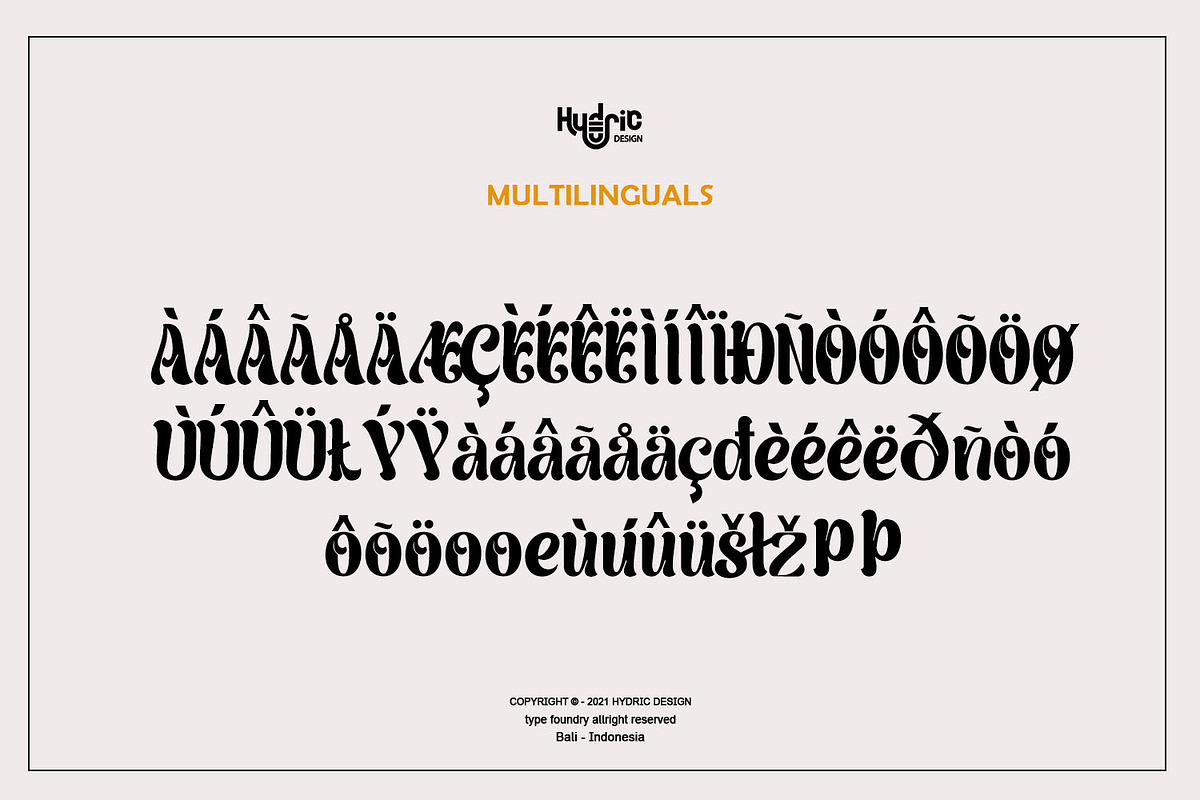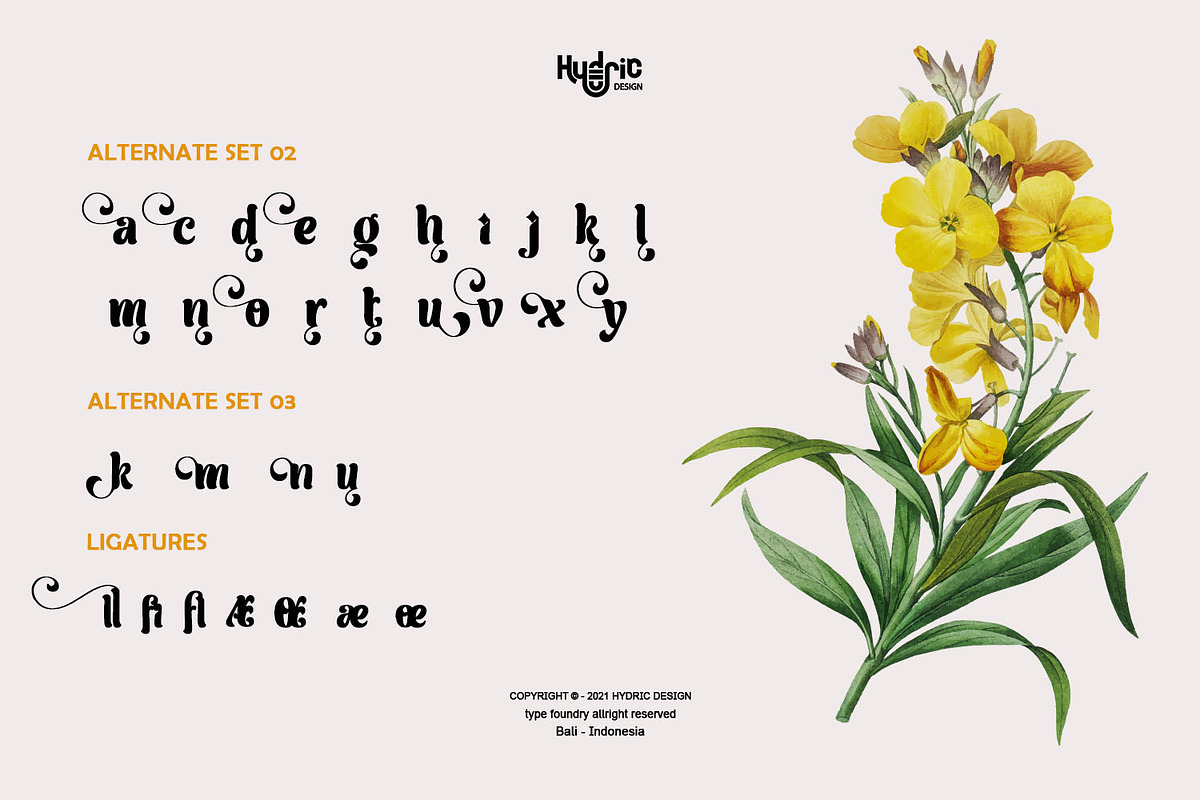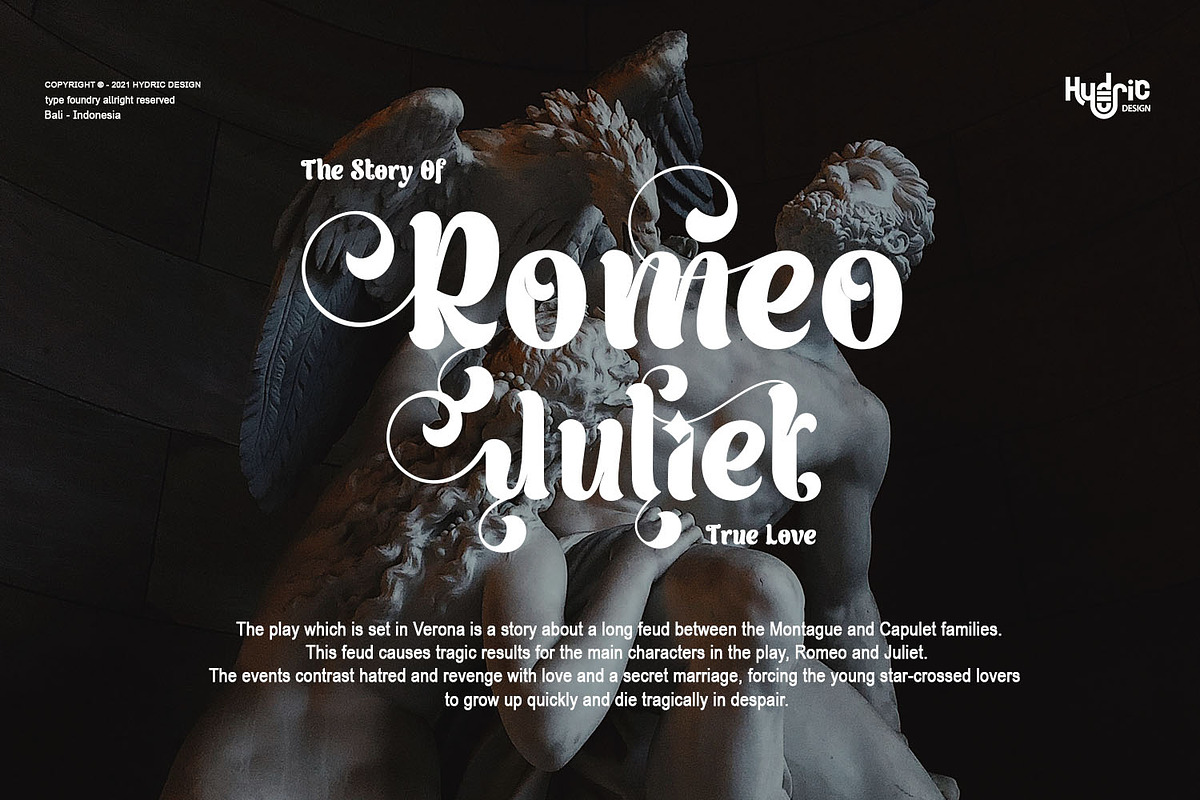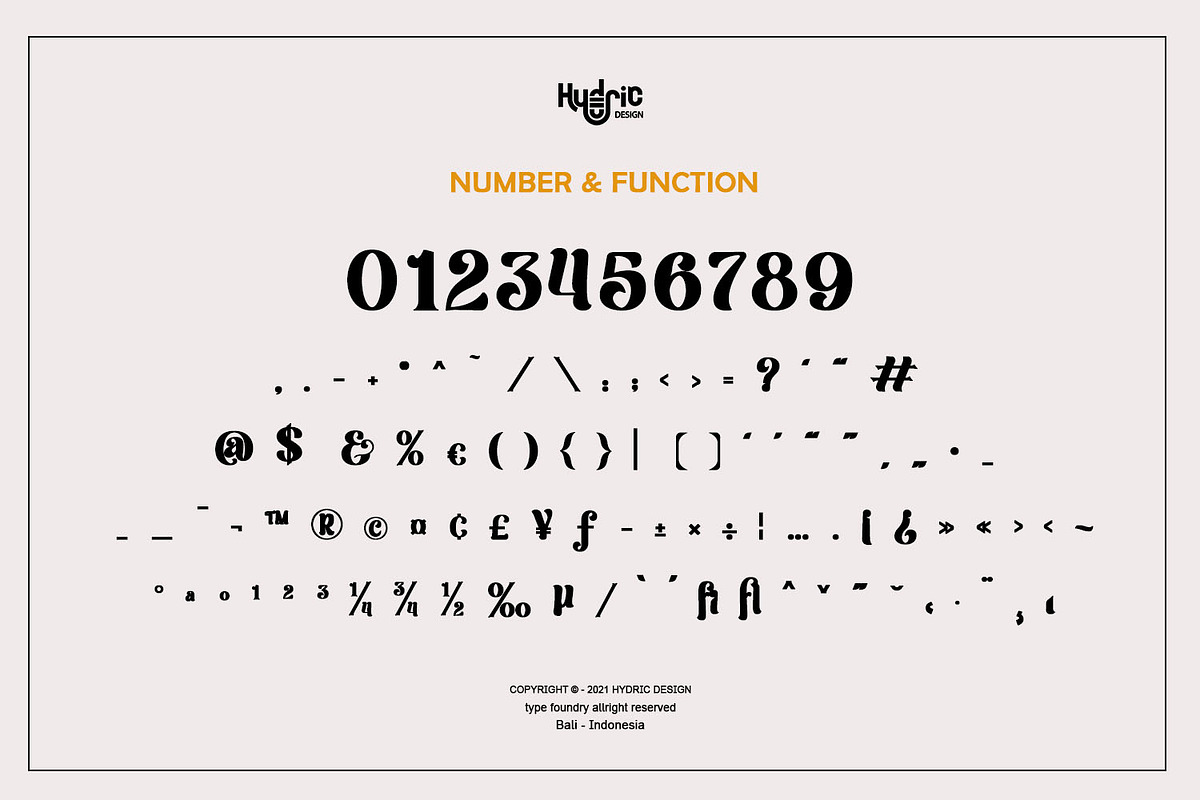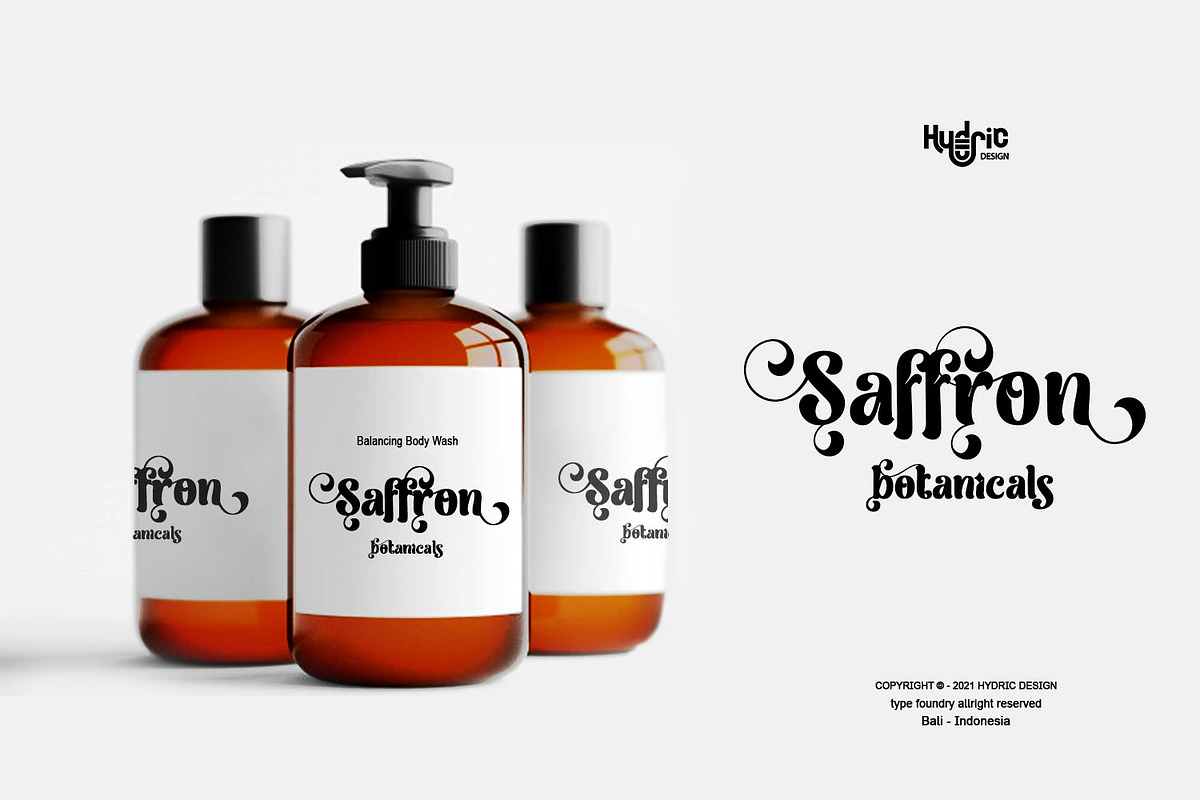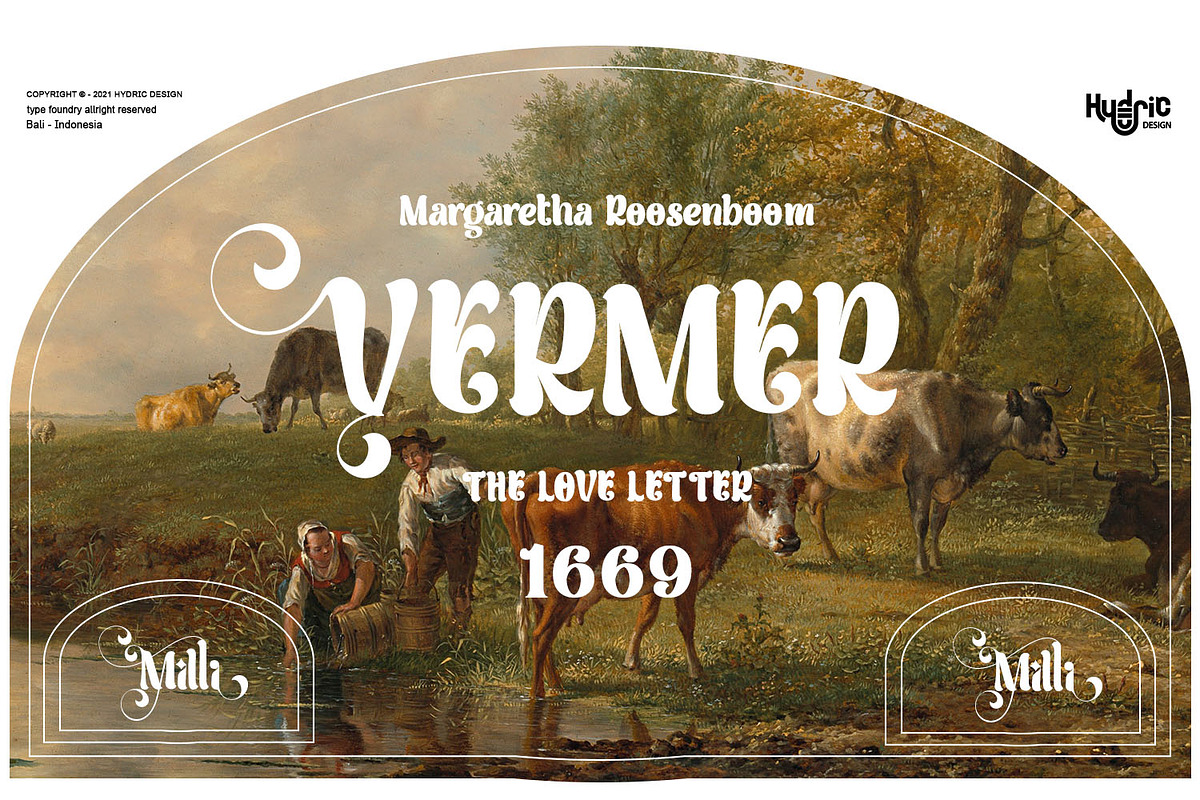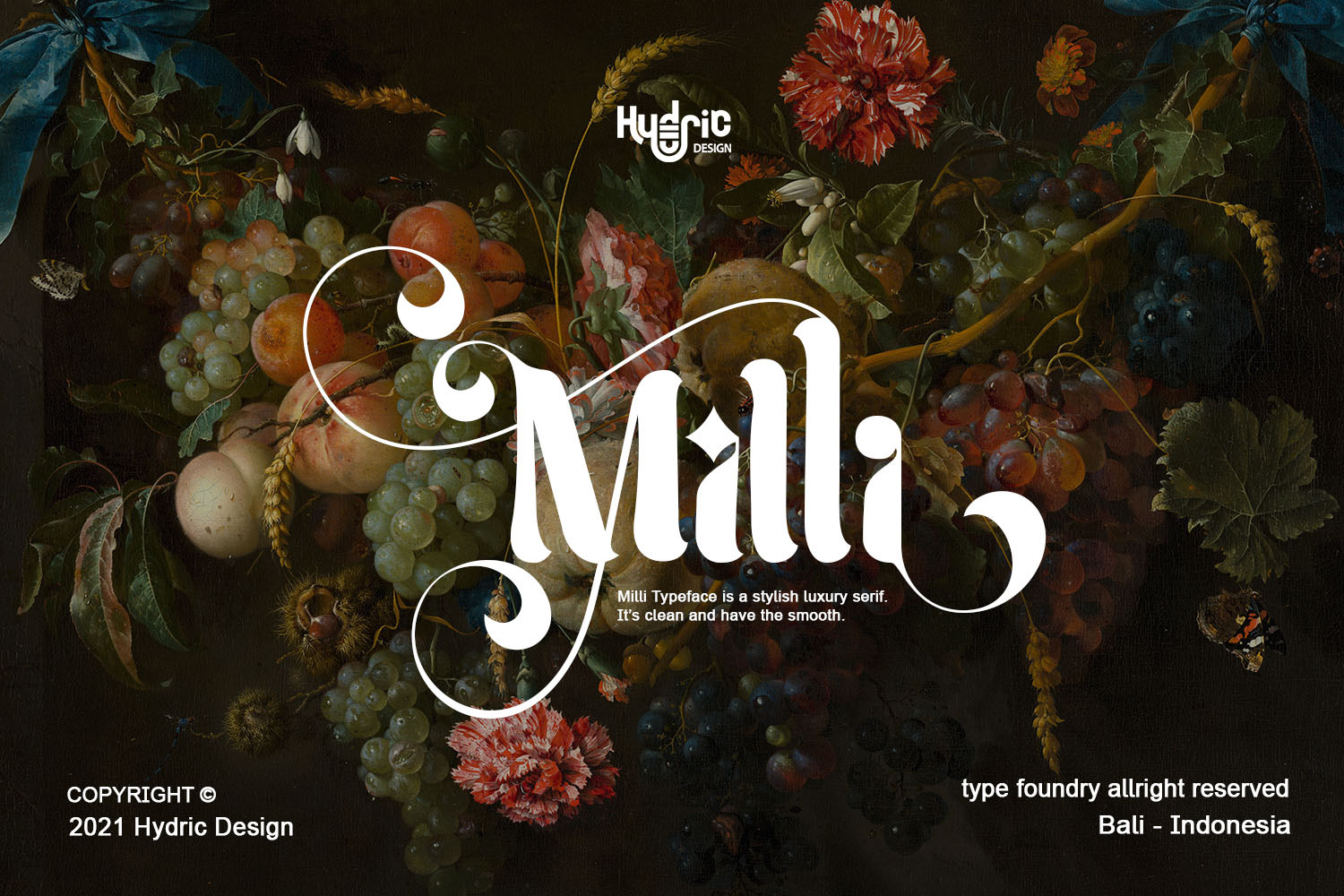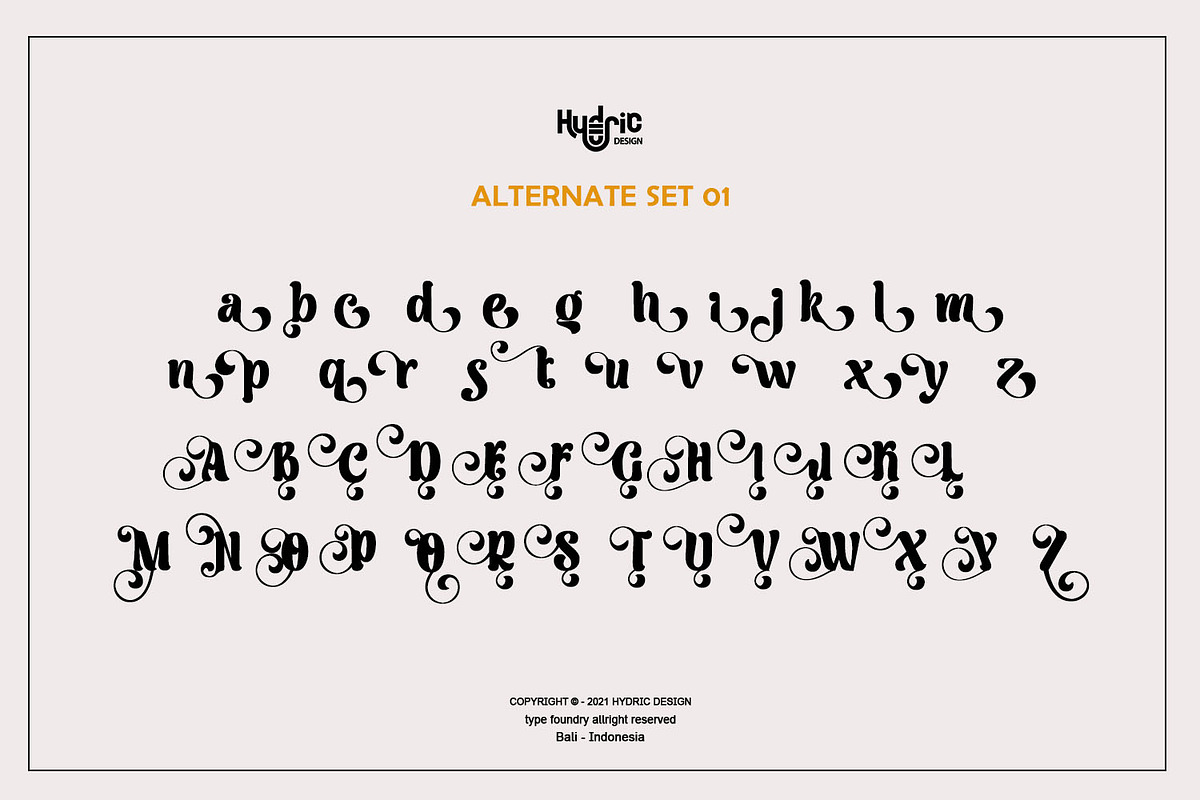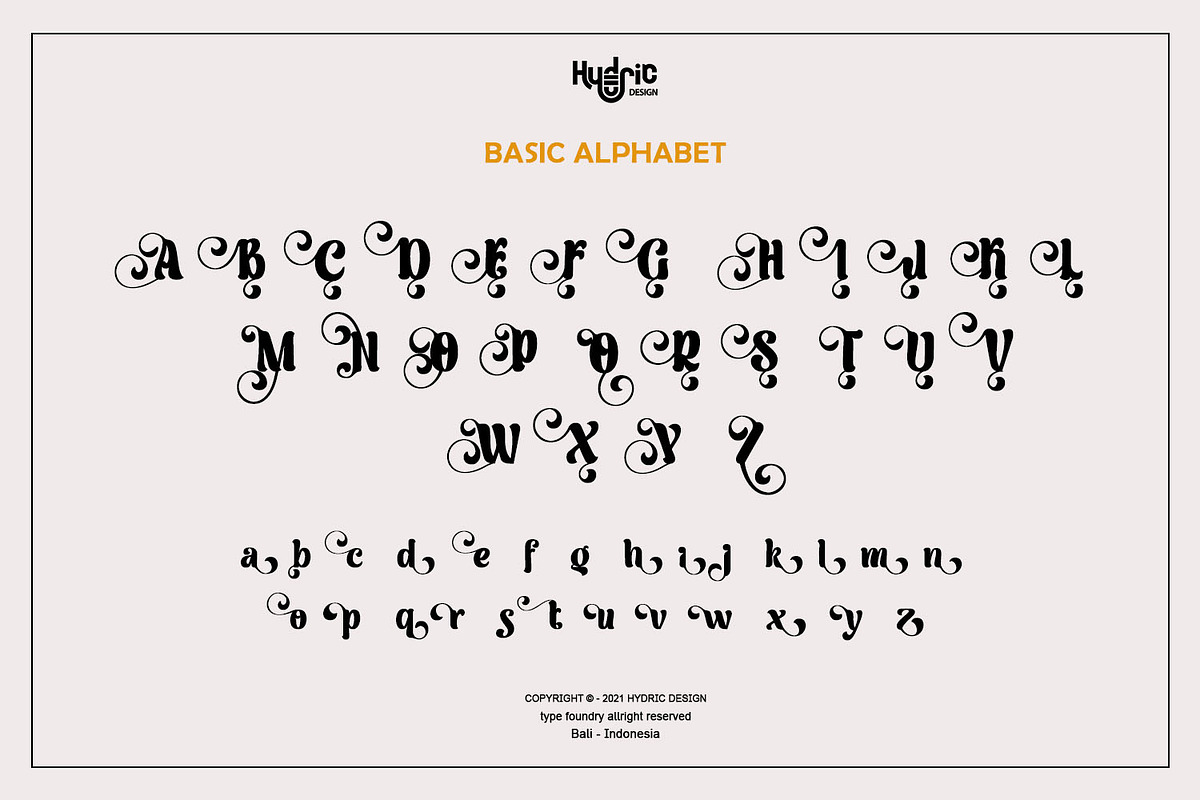
Milli | Luxury Serif Display Font
Milli Typeface is a stylish luxury serif. It's clean and have the smooth, also playful and versatile serif family with 40+ ligatures and 100+ alternates that you can combine to get curves and beautiful shapes just in seconds.
Type the words, This font is suitable for use in many design forms, for example magazines, postcards, logos, DIY Projects, invitation card, quotes, vintage look design, old classic ,60s, 70s, 80s era, wedding projects and much more. We recommend using Adobe Illustrator or Photoshop.